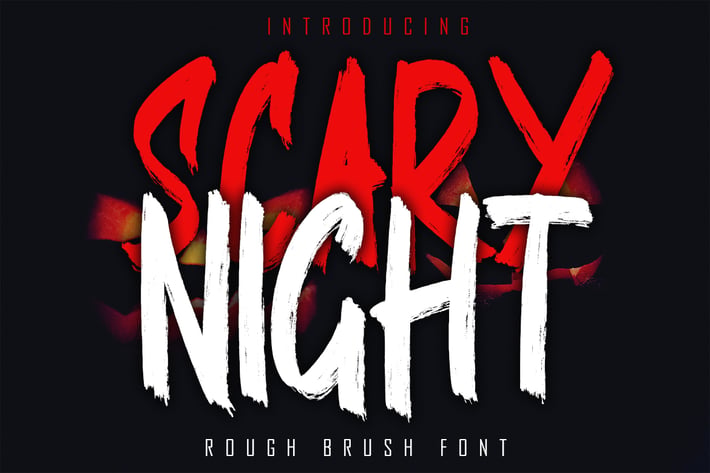
SCARY NIGHT - Rough Brush Font
SCARY NIGHT is a brush font that has a rough brush-like texture accompanied the original and this font supports encoded PUA and basic Multilinggual